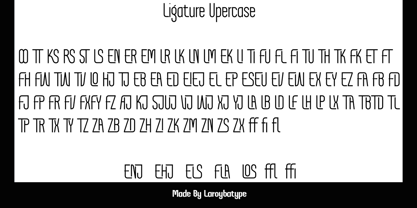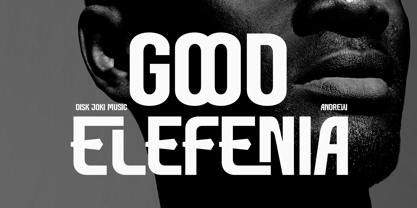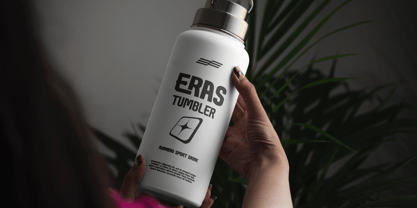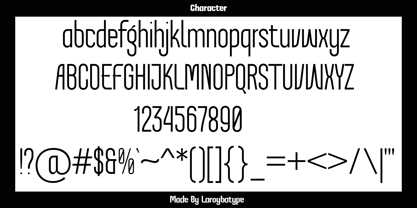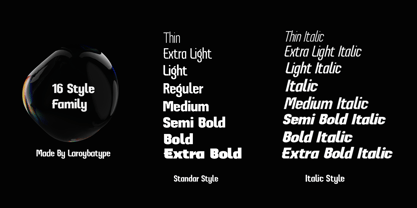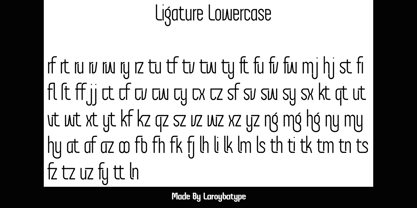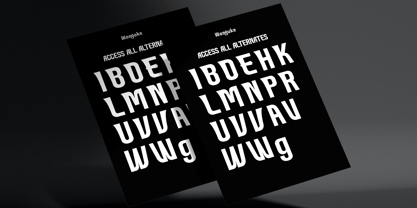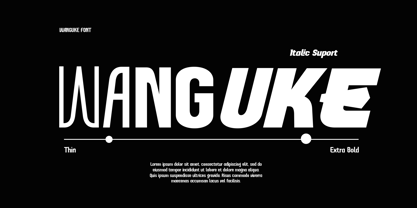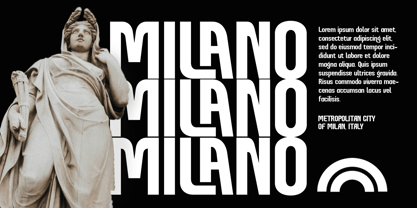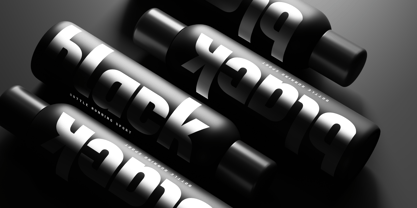
Wanguke
by Laroyba Type
The Wanguke Font Family was designed by Habib Abdur Rofi and published by Laroyba Type. Wanguke contains 16 styles and family package options. More about this family
Wanguke: A Versatile Sans Serif Display Font
Wanguke is a sans serif display family designed with exceptional uniqueness and functionality. This font blends modern style with a touch of elegance, making it a perfect choice for various design needs.
Key Features of Wanguke:
• Rich Ligatures: Wanguke comes with an extensive collection of ligatures, allowing for greater creativity and versatility.
• Unique Characters: Each letter is crafted with precise proportions, creating a visually striking and captivating aesthetic.
• Multi-Purpose Use: Perfect for branding, editorials, posters, and other visual designs that demand a bold and professional look.
• Variety of Styles: Available in multiple weights and styles to suit different design projects effortlessly.
Ideal Applications:
Wanguke adds a bold personality to magazine headlines, modern logos, music posters, and other visual designs that require a unique and contemporary touch.
Elevate your designs with Wanguke – a font that not only brings modern aesthetics but also enhances your creative flexibility.
Designers: Habib Abdur Rofi
Foundry: Laroyba Type